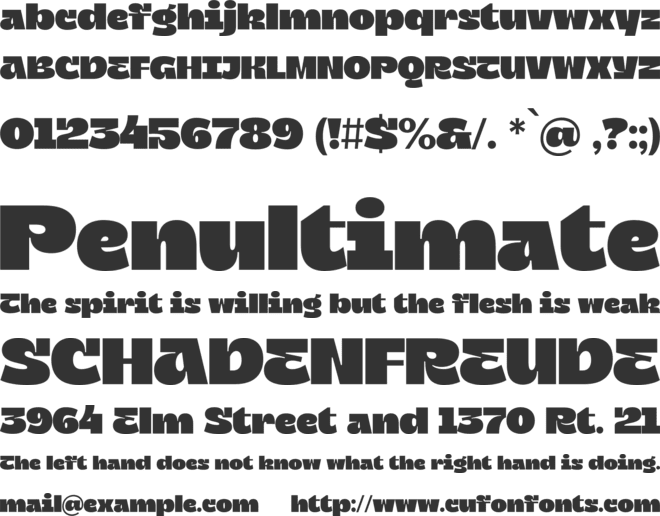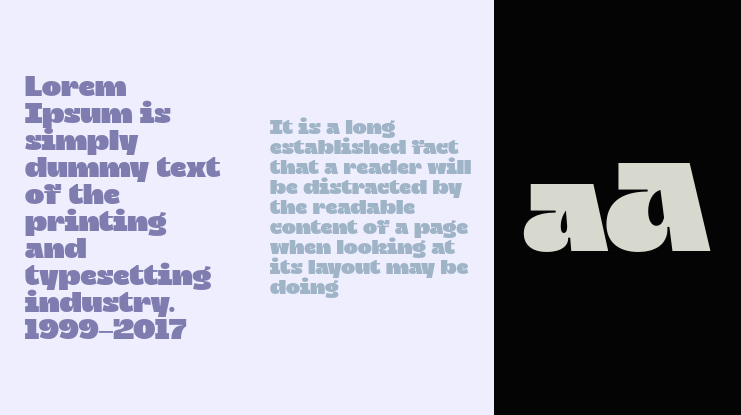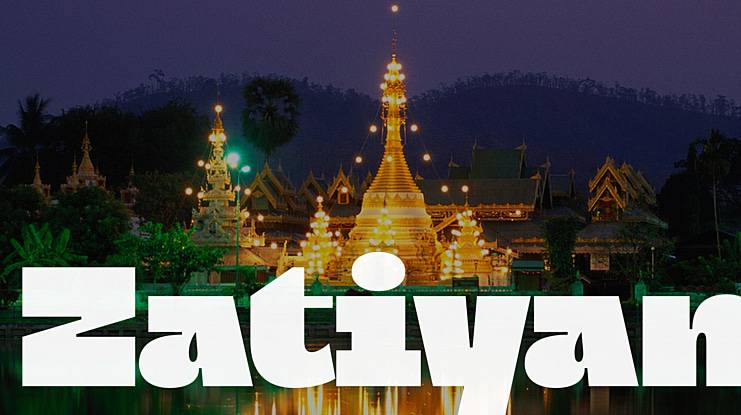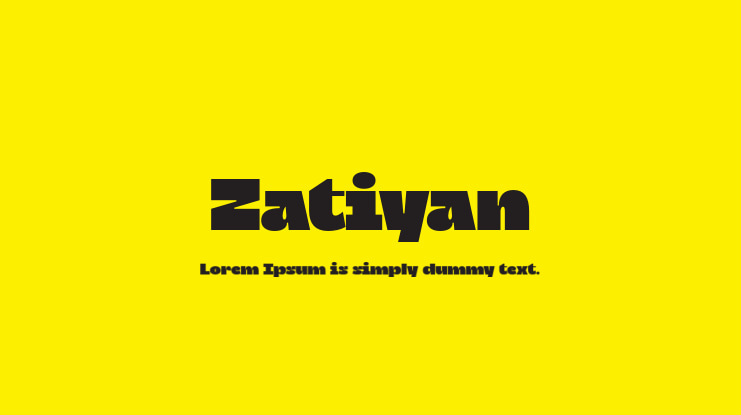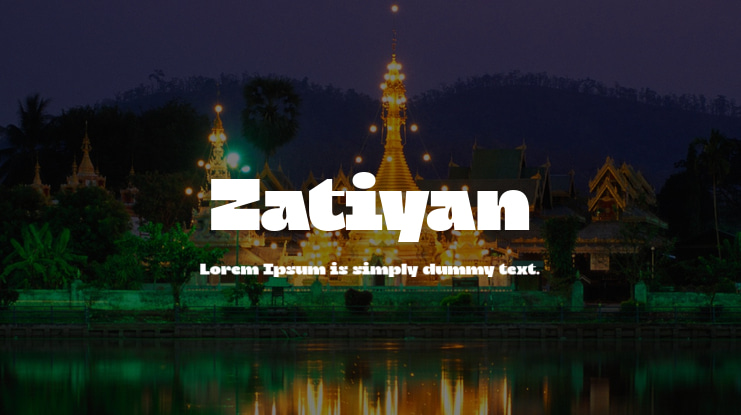
Zatiyan Font
Introducing Zatiyan Display Typeface.
A bold, modern mixed with some classic letter styles.
Zatiyan typeface great for all aspects of graphic design from logos to layouts. Equipped with ink traps for increased legibility and a unique style to help your design stand out amongst the rest!